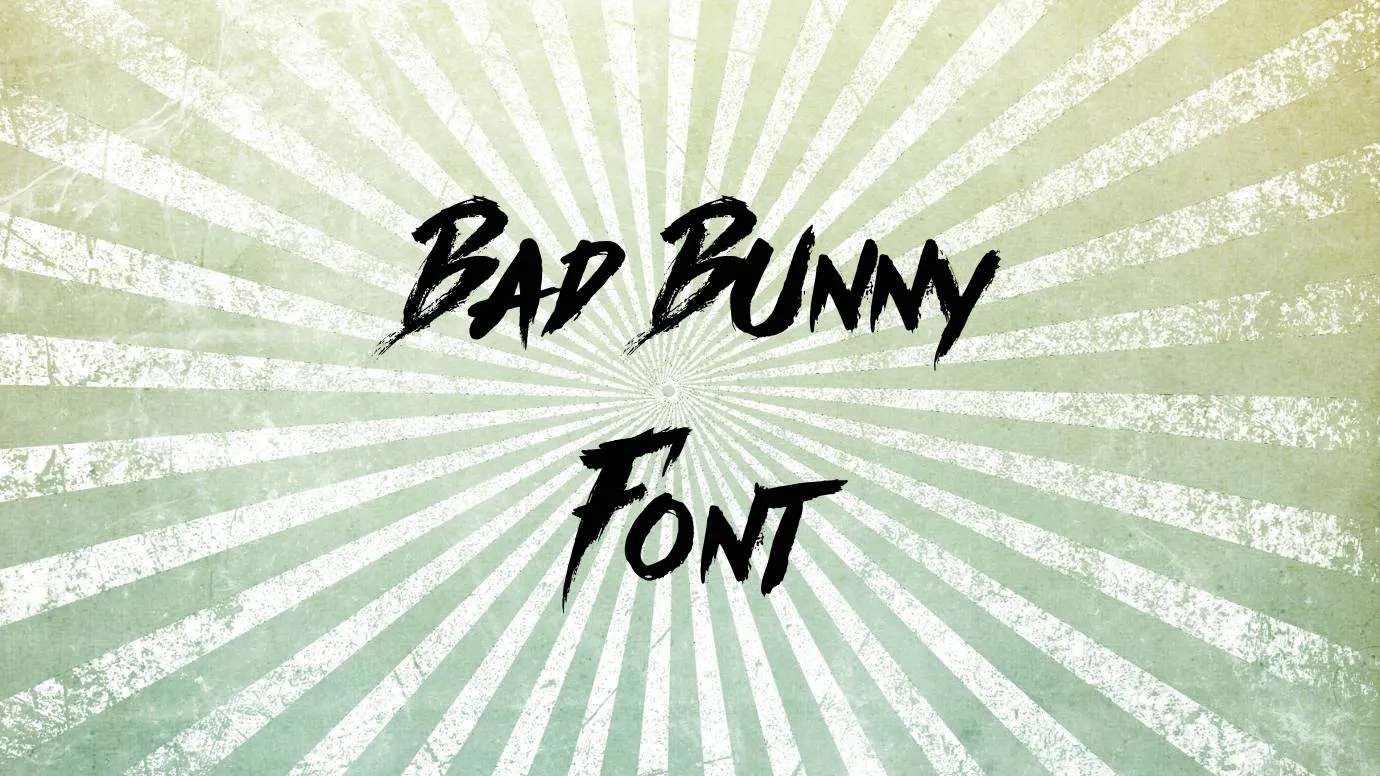
Bad Bunny Font Family comes with a hand-drawn look and sharp corners characters. This font was designed by Ramandhani Nugraha. It comes with more than 120 characters along with numbers, uppercase letters, and specially modified letters.
This font is used for the name design of a rap artist that is popular all over the world. This font family is good for pairing with hulkamania font which is a famous brush typeface.